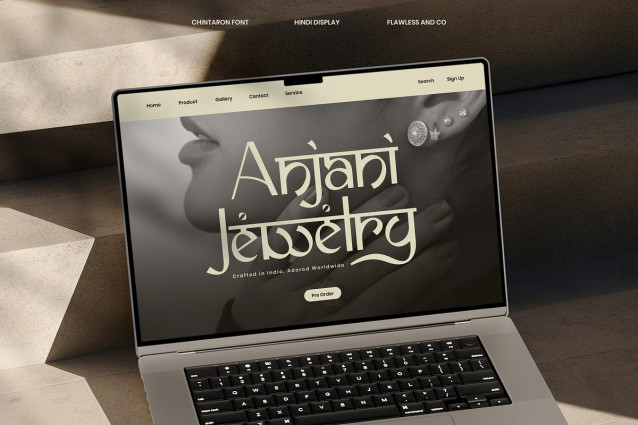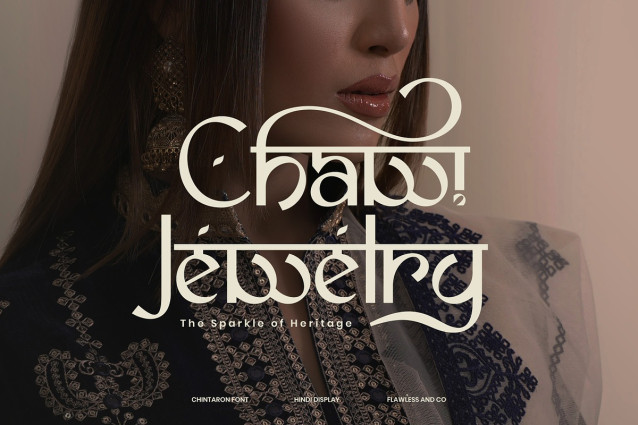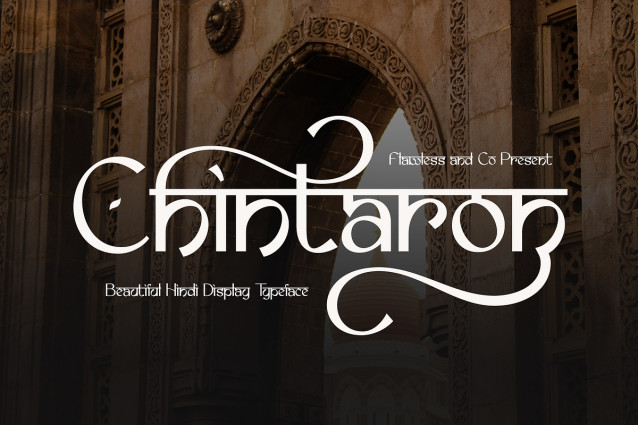
Chintaron Display Font
Chintaron Display Font is a beautiful Hindi display font that blends traditional elegance with a touch of modern artistry. Inspired by the curves and lines of classic Indian scripts, Chintaron brings a graceful and cultural essence to every design it touches. Its unique letterforms feature intricate swashes and stylish strokes, making it both distinctive and versatile. Perfect for projects that need a rich cultural identity, Chintaron adds sophistication and charm whether used in headlines, branding, or artistic displays. With its refined detai ls and expressive character, this font transforms text into a visual statement that feels timeless yet contemporary.